Today marked the official resignation of Hillary Clinton as Secretary of State, and not only can we read the text of her resignation letter to President Obama but we can see an image of the physical letter itself. The letterhead’s a bit boring, and the valediction’s a bit wordy. But there is at least one most noteworthy element: the odd choice of typeface.
The reaction in the Slate office was one of revulsion and surprise. The letter’s weird font does not belong to the usual stable of detested typefaces, which includes such howlers as Comic Sans and Papyrus. The Twittersphere has identified it as Poor Richard. Why use such an ugly typeface? And such an obscure ugly typeface?
It’s not the first time Clinton has opted for it (or something like it), either: See, for example, the letters below, from 2009 and 2010, respectively.
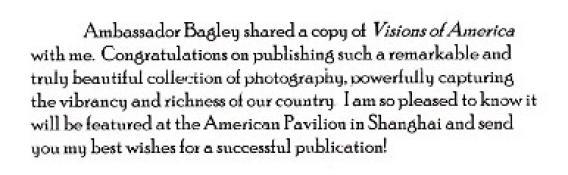
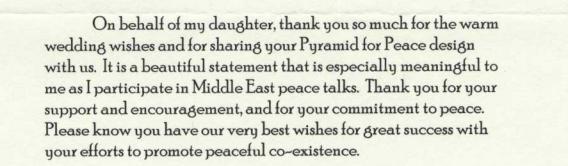
Clinton made other questionable choices in her resignation letter as well: the old-fashioned indents, what appear to be two spaces after each period. What does this say about the presumptive front runner for the Democratic presidential nomination in 2016?
OK, probably nothing. This is all fairly trivial when discussing one the most influential members of Obama’s first term and the most traveled Secretary of State of all time. Nevertheless, branding has become a key part of any presidential campaign, and typefaces are an essential part of branding. If Clinton does decide to run for the highest office in the land, she might want to avoid awkward fonts with tall capitals, short lowercases, and a general impression of fustiness. It’s the least we should ask for from a typographer-in-chief.